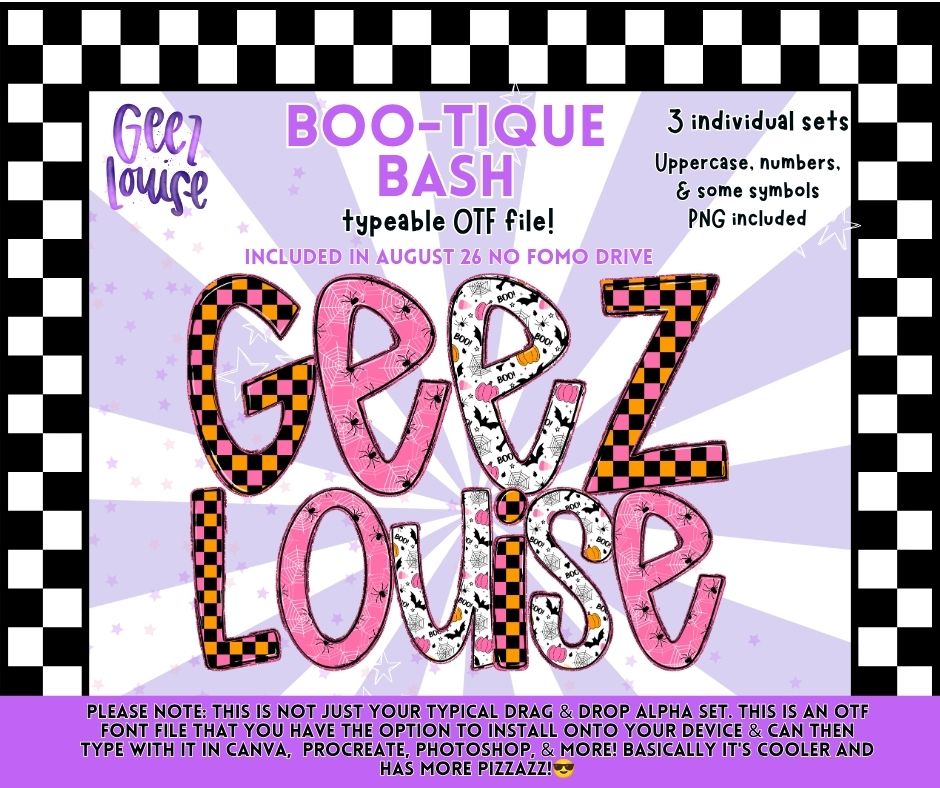
Boo-Tique Bash OTF Font & PNG Alpha Set | Pink Halloween Alphabet
A bright, playful Halloween alpha set with checkerboard, spiderwebs, pumpkins, ghosts, and plenty of pink! 👻🩷
- 3 individual alpha sets
- Uppercase letters, numbers & some symbols